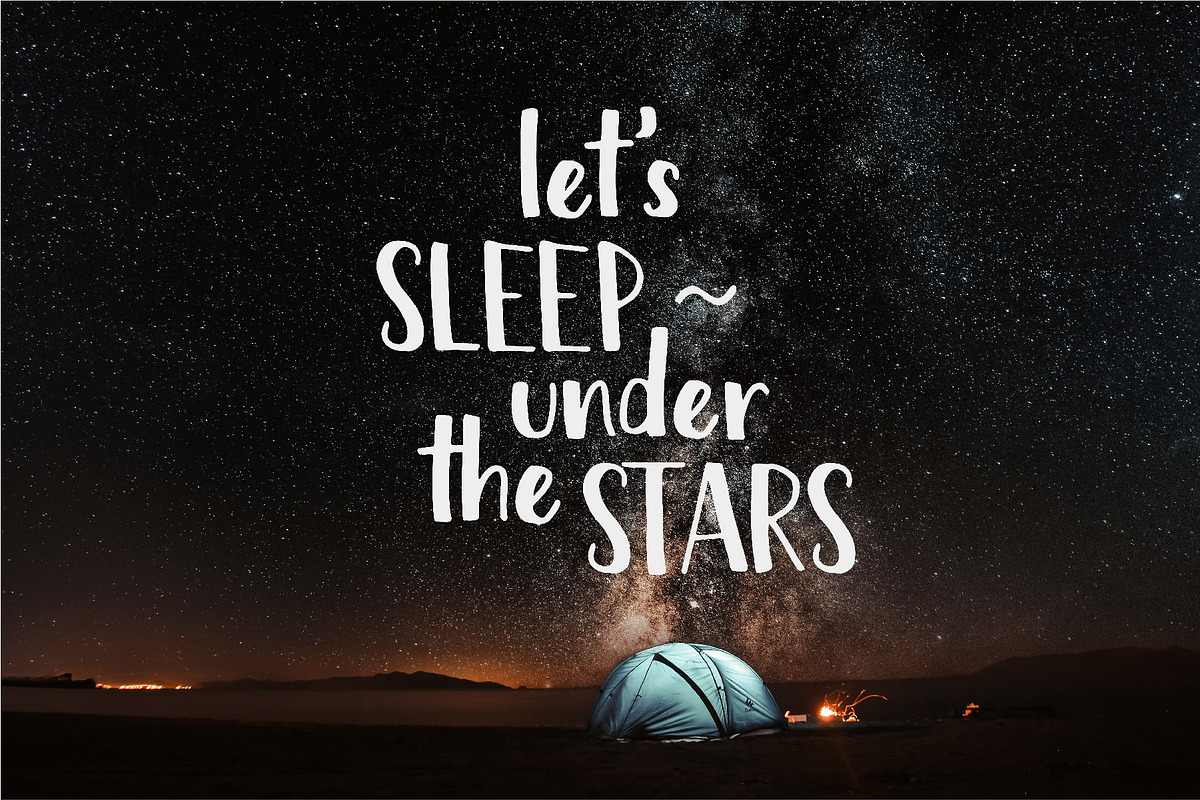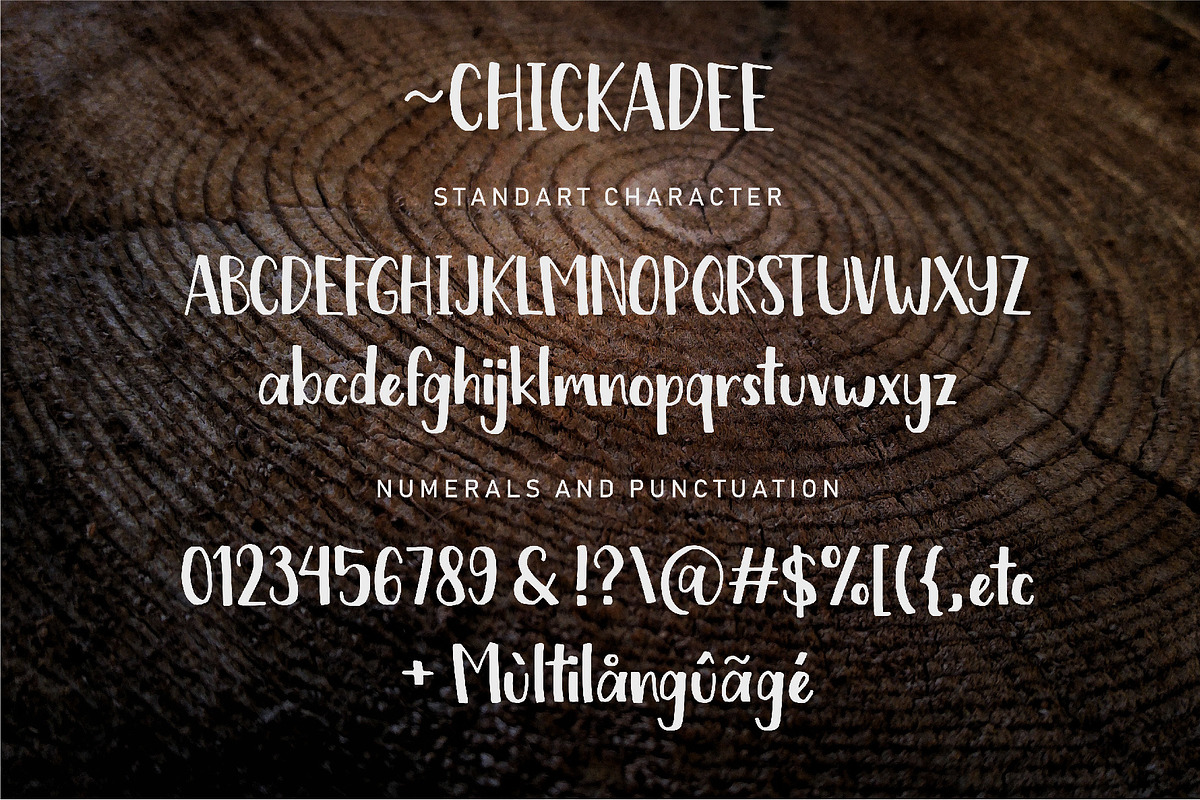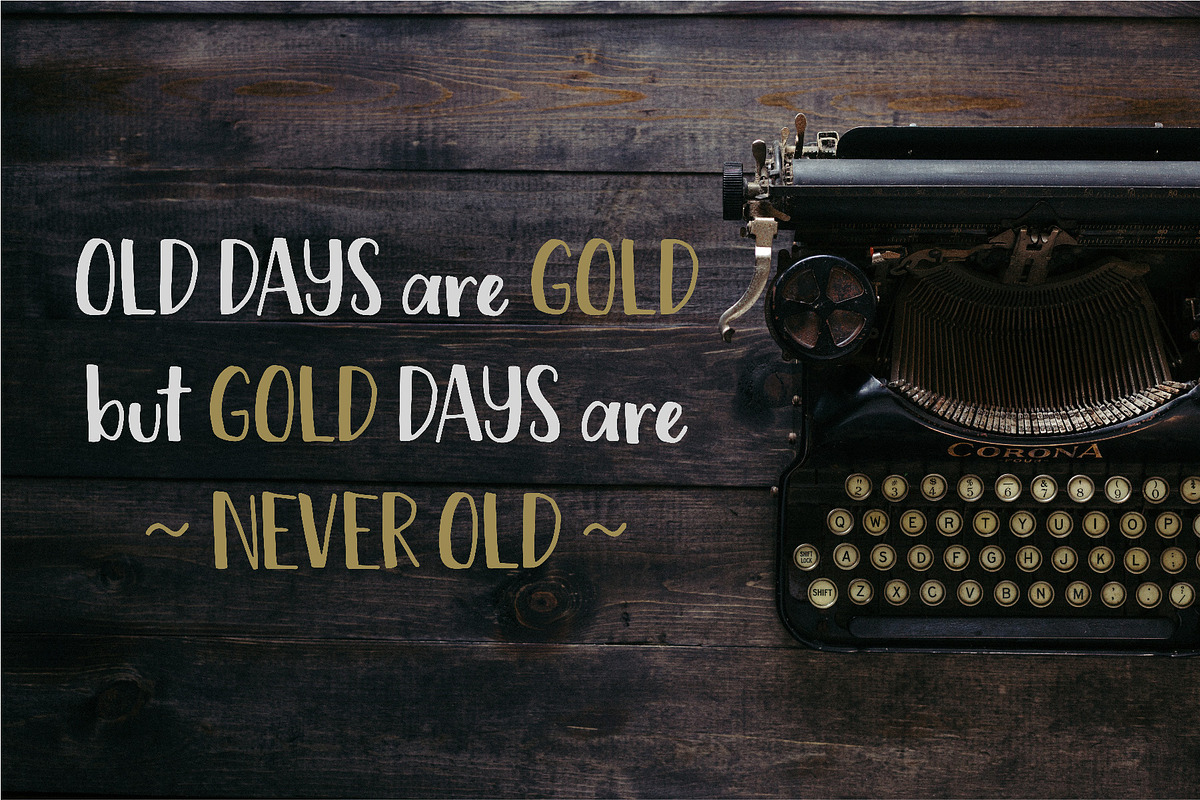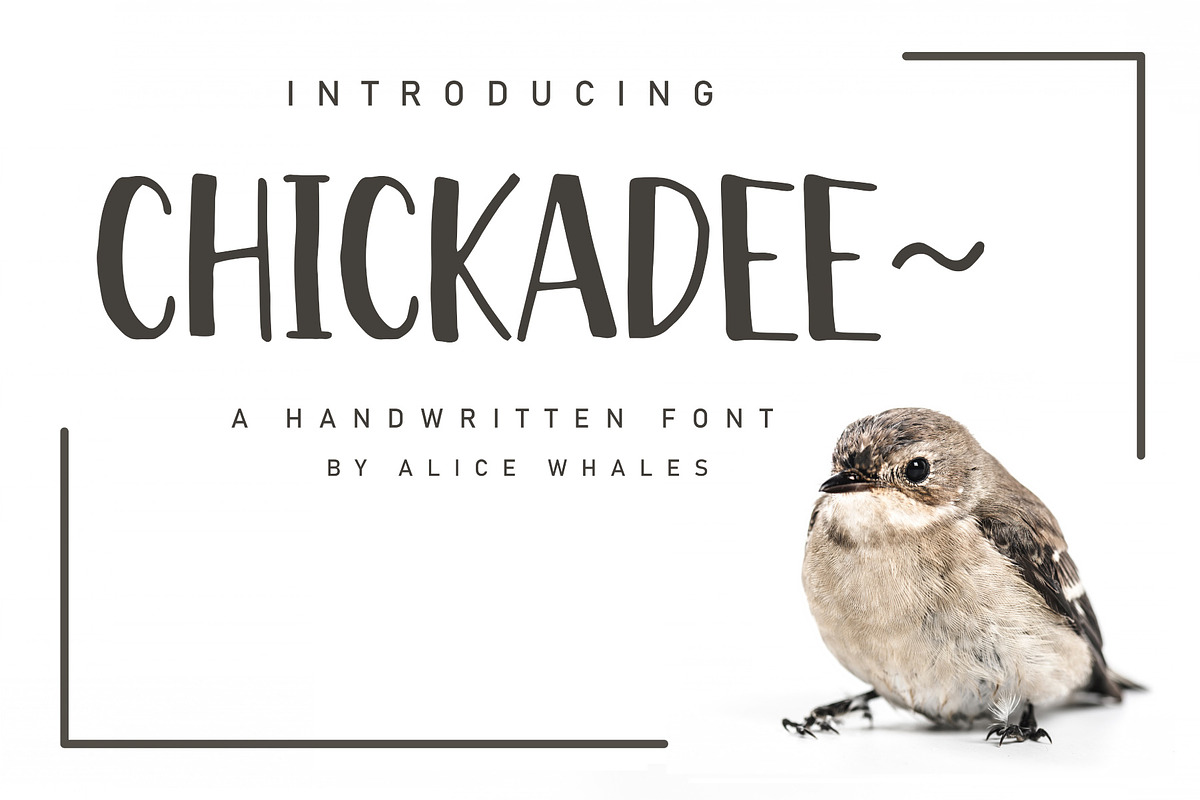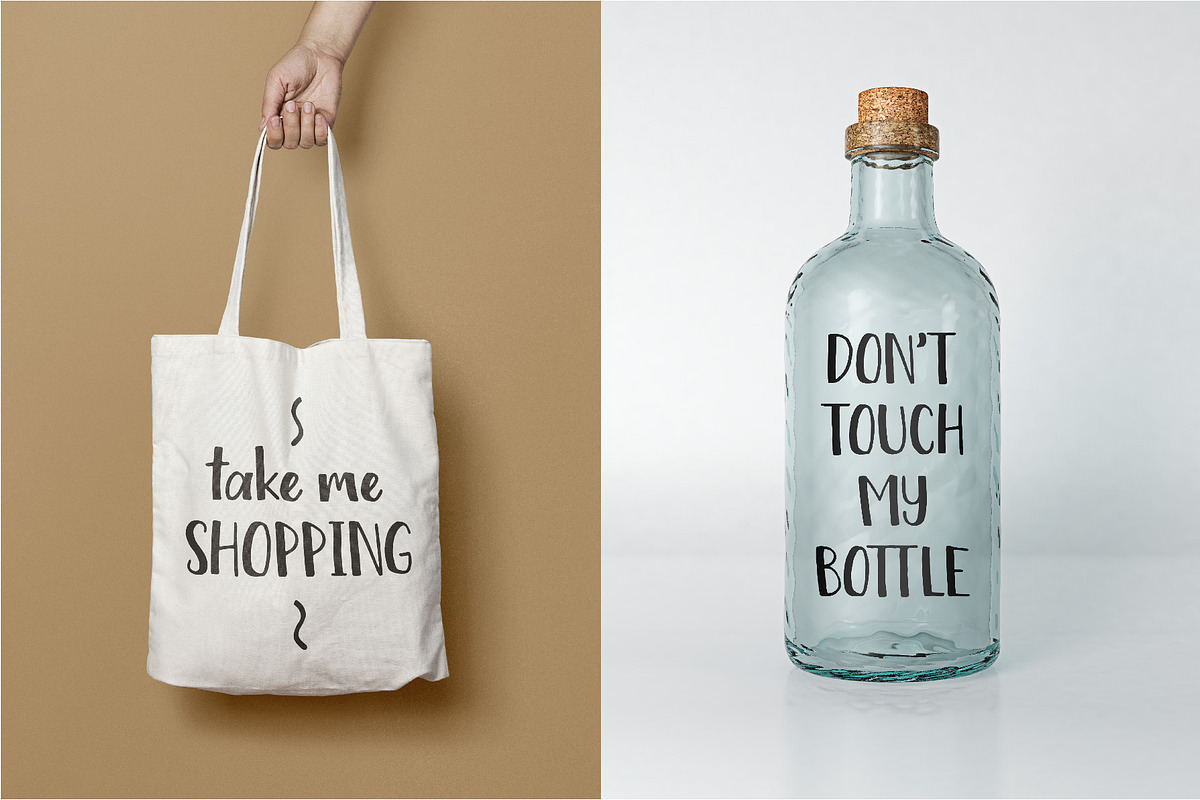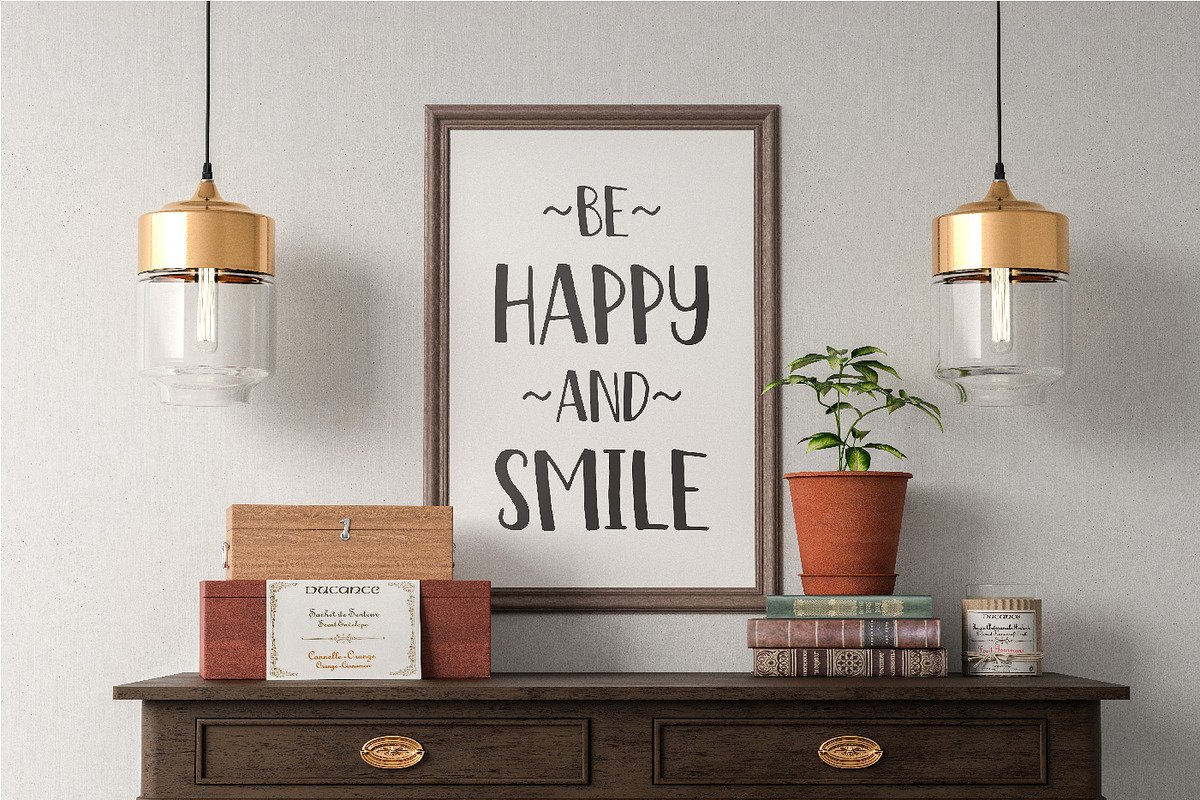
Chickadee - A Handwritten Font
Chickadee is doodle typeface perfect for any fun quirky design work! This font can be used for anything such as T-Shirt designs, phone cases, greeting cards, invitations, mugs and so much more! Get creative!
Chickadee - A Handwritten Font by NendesKombet Studio fits naturally into Branding, posters, packaging, typography.